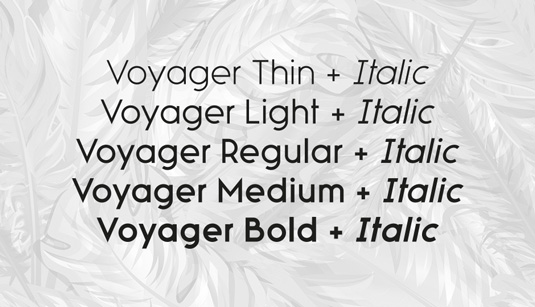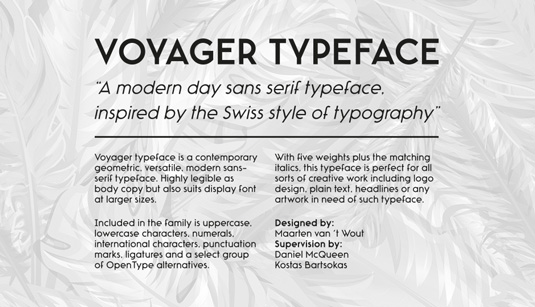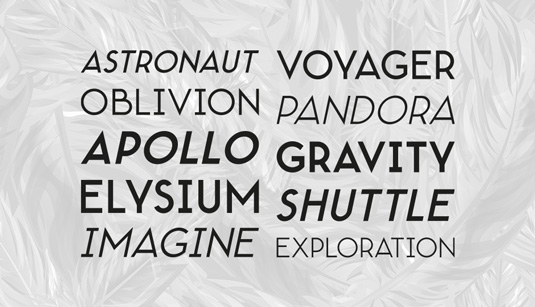
Font of the day: Voyager
Every day we showcase the best fonts on the web. Today it's Voyager by Maarten Van 't Wout.
Voyager by Maarten Van 't Wout
Created by designer Maarten Van 't Wout, Voyager is a contemporary, geometric sans serif typeface. Available from Ten Dollar Fonts, the font is described as being "highly legible as body copy but also suits display typography due to the subtle personality given by the range of OpenType alternates".